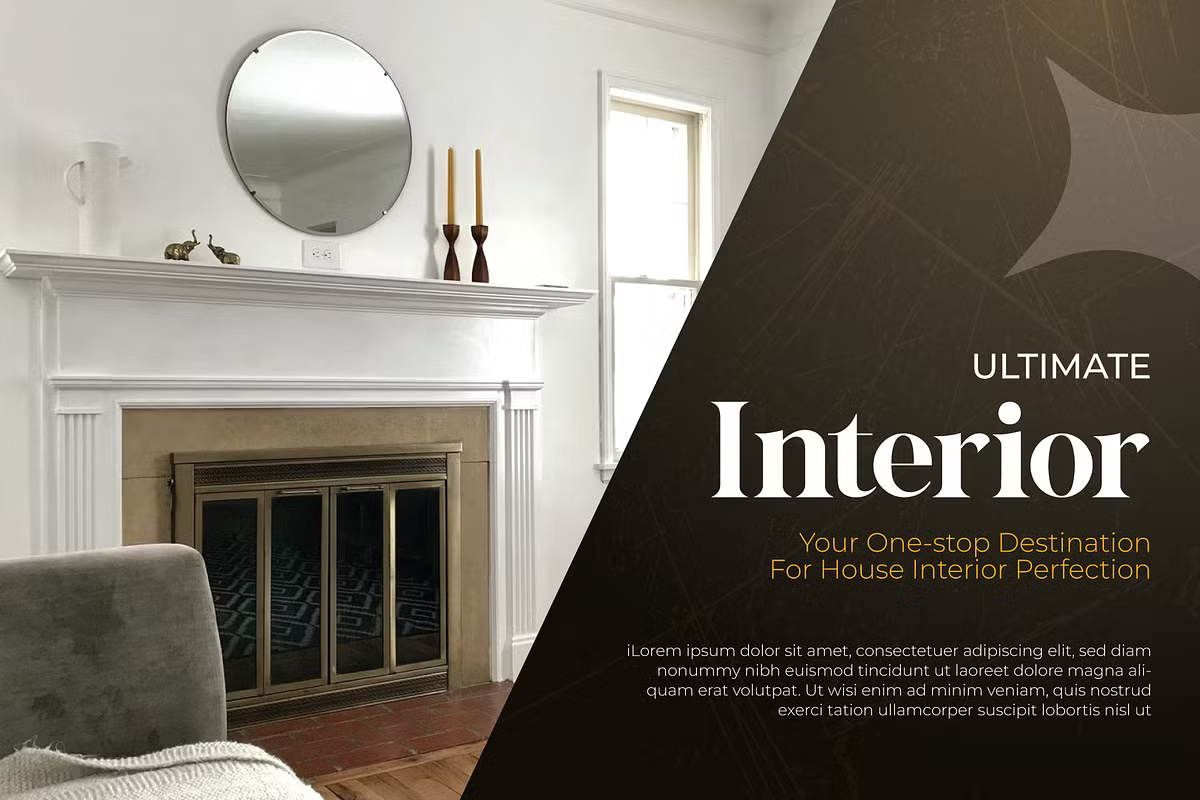
Regista Font
Regista is a stylish display serif typeface that exudes elegance with a modern twist. Each character is meticulously designed with strong, refined serifs and crisp, chiseled outlines, ensuring a sophisticated and contemporary aesthetic. With its clean-cut design, Regista is perfect for corporate branding, editorial layouts, high-end publications, and any project that demands a touch of class.